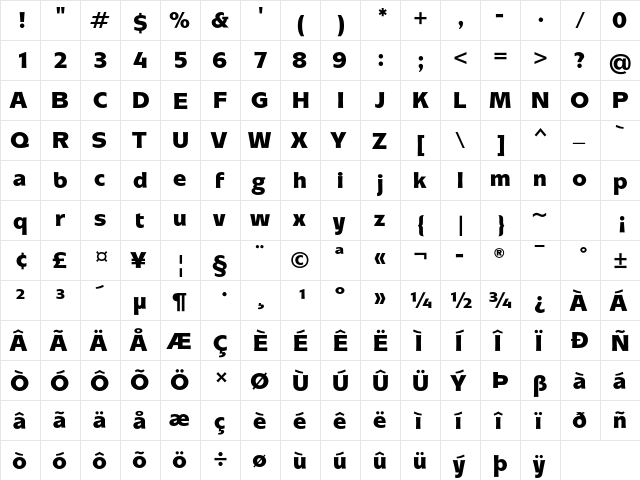
Mixage ITC Std Black
Black ·  Aldo Novarese ·
Design Context for Mixage ITC Std Typeface
Mixage ITC Std is a composed and adaptable typeface that performs quietly and consistently across a wide range of design contexts.